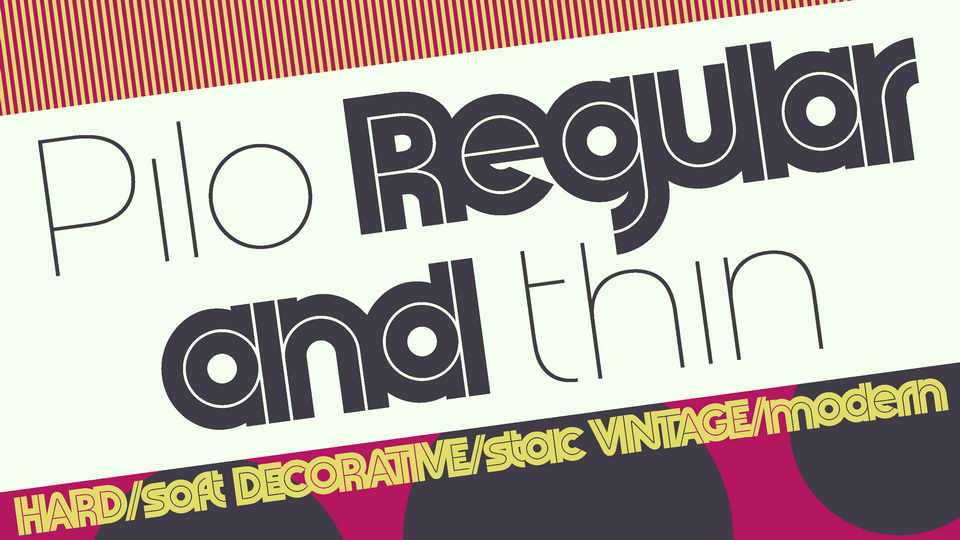
Download Pilo typeface, a display font family featured in Regular and Thin weights. Pilo Regular is a bold, single weight font featuring subtle inline detailing and a solid sporting aesthetic. Pilo Thin is a a thinner cousin to create contrast.